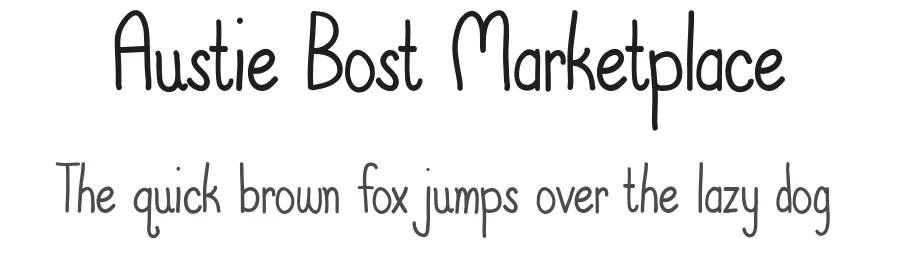
About Happy Doodle Font
Happy Doodle Font is a script font that shines as a display or heading face. Pair it with a clean sans-serif or serif font for body text β the contrast creates a clear hierarchy while the two styles stay balanced and easy to read.
Happy Doodle Font
by One Design